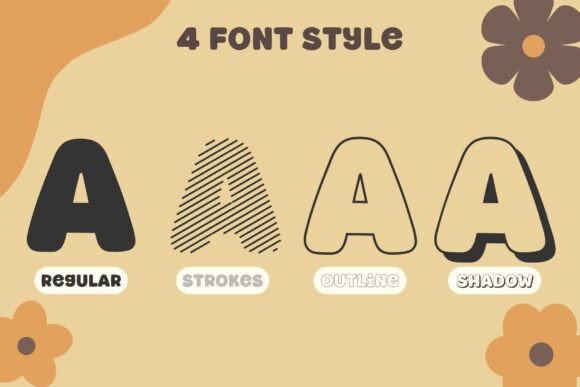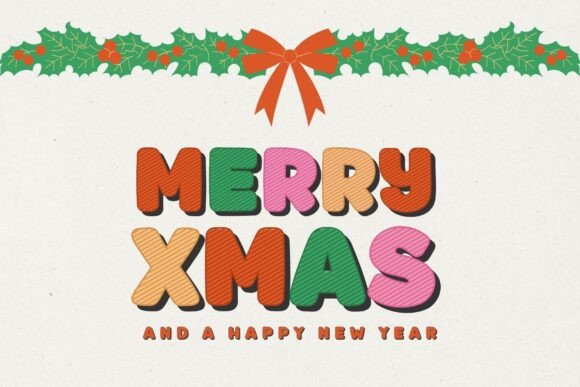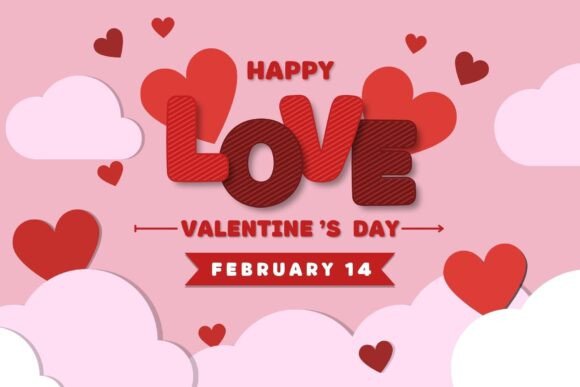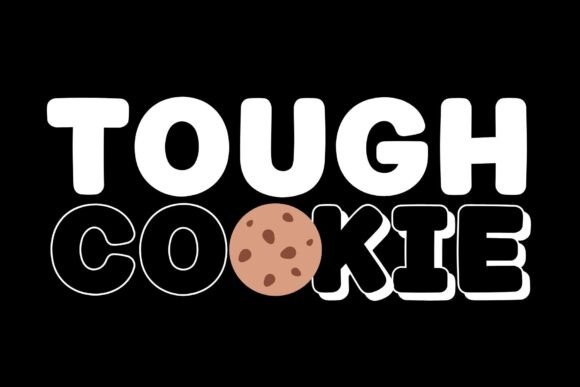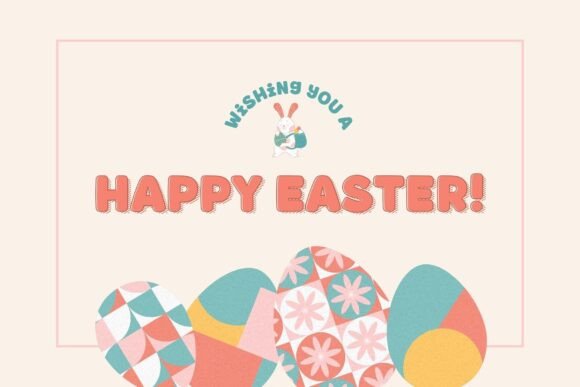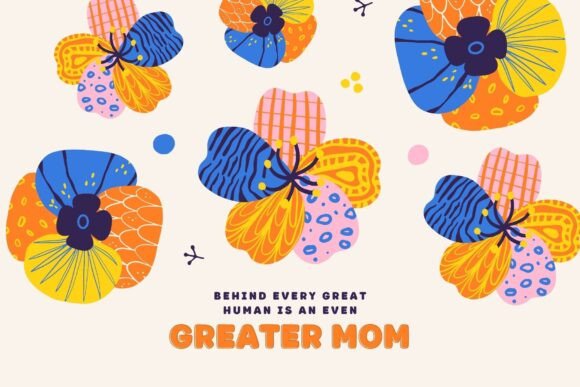
The Ultimate Display Font for Creatives: Fox Chunky
Have you ever been in the middle of a design project, and suddenly, you’re stuck on finding the perfect font? I recall a recent experience where I was working on a children’s book cover, and I just couldn’t find a font that captured the playful yet bold personality I was looking for. That’s when I stumbled upon Fox Chunky, a fun and lively display font that instantly brought my design to life!
First Impressions: A Personal Review
Fox Chunky is more than just a font – it’s a design statement. With its thick, rounded letters and charming hand-drawn style, it’s perfect for eye-catching titles, posters, branding, and more. Here’s what I love about it:
- ✨ Four unique styles to choose from: Regular, Strokes, Outline, and Shadow
- ✅ Perfect for children’s designs, retro-themed projects, or fun branding
- ✅ Bold and playful personality that adds warmth to any design
- ✅ Easy to read, even in larger sizes
Of course, no font is perfect, and there are a few small quirks to consider:
- 🤔 Limited use for body text due to its bold nature
- ⚠️ May not be suitable for very formal or professional designs
Fox Chunky comes with a range of OpenType features and glyphs that can enhance your designs. In compatible software like Adobe Photoshop and Illustrator, you can access:
- Stylistic alternates for varied letterforms
- Glyphs for customizing specific characters
The Story Behind Fox Chunky
Fox Chunky was designed with creativity in mind. Its designer aimed to create a font that would bring a playful yet bold personality to any design project. Inspired by retro children’s books and playful branding, Fox Chunky is the perfect addition to any designer’s toolkit.
Here are some common questions about Fox Chunky:
- Q: What type of designs is Fox Chunky best suited for?
- A: Fox Chunky is perfect for children’s designs, retro-themed projects, fun branding, posters, and eye-catching titles.